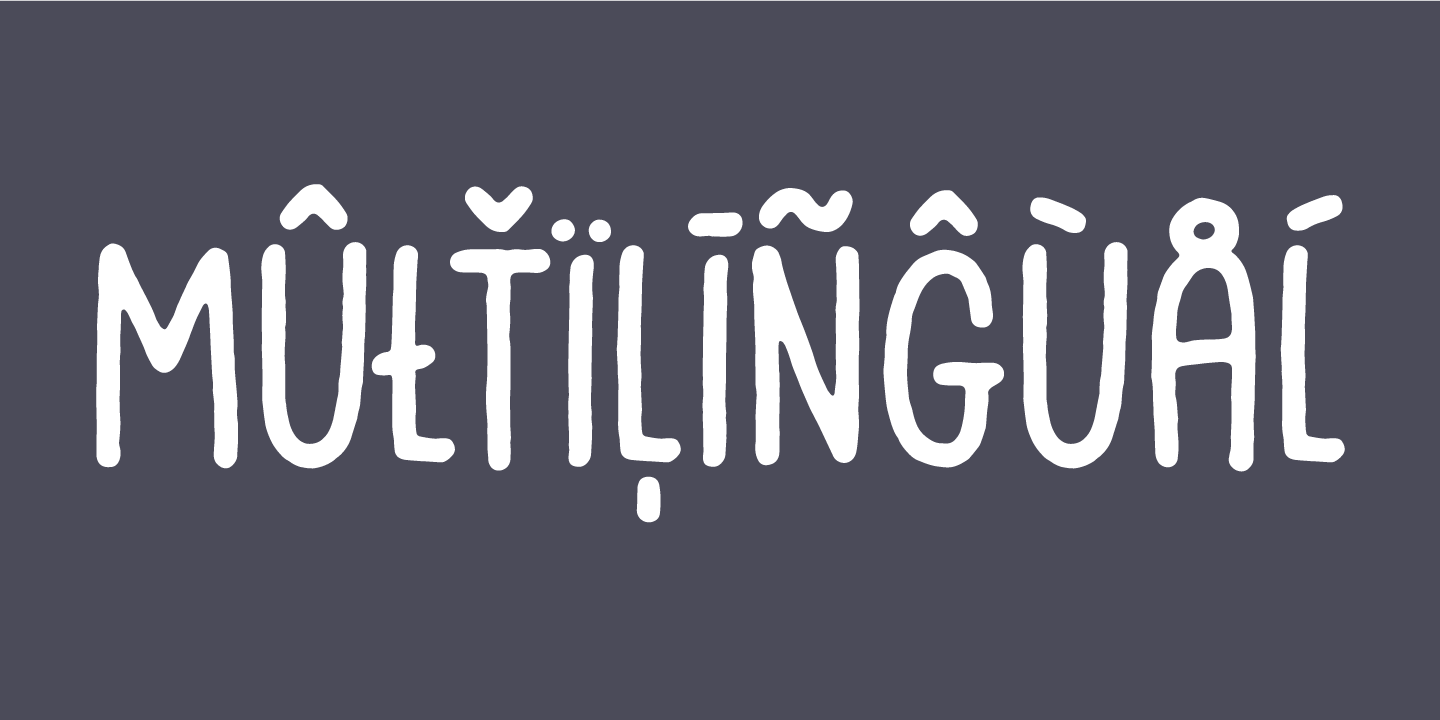
The Direkteur Font is perfect for various design applications including executive leadership branding, corporate director materials, high-level management presentations, boardroom signage designs, CEO communication graphics, executive consulting logos, director-level documentation, and authoritative business leadership materials. This commanding typeface works exceptionally well for executive brands and projects requiring directorial authority with professional leadership appeal.
What makes Direkteur Font exciting is its authoritative and executive character that instantly conveys directorial leadership and captures the commanding presence of high-level management with professional excellence. The font features strong letterforms with executive aesthetics and directorial qualities that evoke feelings of leadership, authority, and strategic vision. Its commanding styling and director-inspired appearance make it perfect for brands that want to establish executive credibility and connect with audiences who respect strong leadership and directorial expertise.
The Direkteur Font family includes multiple weights and styles, offering designers flexibility for diverse executive applications. The family typically consists of regular, bold, medium, and condensed variations, along with executive decorative elements and leadership ornaments, providing comprehensive coverage for projects that need both authority and visual impact across different directorial contexts.
Whether you're working on executive consulting services, corporate leadership programs, or director-level marketing campaigns, Direkteur Font Free Download delivers the authoritative quality and visual leadership that modern executive designers demand. The font's director-inspired design combined with its excellent readability makes it an essential tool for creating compelling visual communications that embody executive excellence and bring the commanding spirit of directorial leadership to life.